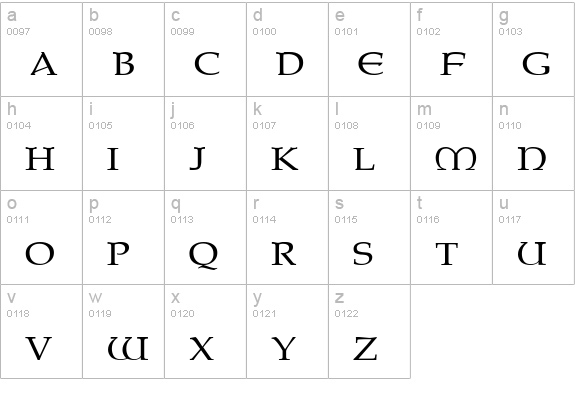
Introducing Paternoster AH, a stunningly elegant font that effortlessly combines timeless sophistication with a modern twist. This font is the perfect choice for those seeking to add a touch of class and refinement to their designs. Paternoster AH features a unique blend of delicate lines and graceful curves, creating a harmonious flow that captures attention and exudes professionalism. Its versatile nature allows it to be used in a variety of design projects, from elegant wedding invitations to sleek corporate branding. With its generous x-height and perfectly balanced letterforms, Paternoster AH ensures optimum legibility in both print and digital mediums. Whether it's a small paragraph of text or a bold headline, this font guarantees readability without sacrificing its inherent beauty. But what makes Paternoster AH truly exceptional is that it is available for free! Yes, you heard that right. This extraordinary font can be freely downloaded at FontsMarket.com, making it accessible to designers, enthusiasts, and anyone looking to elevate their design game without breaking the bank. So why wait? Unleash your creativity and explore the endless possibilities that Paternoster AH has to offer. Whether you're designing a logo, creating stunning graphics, or crafting an eye-catching poster, this font is sure to make a lasting impression. Download Paternoster AH today and experience the beauty and versatility of this remarkable typeface.